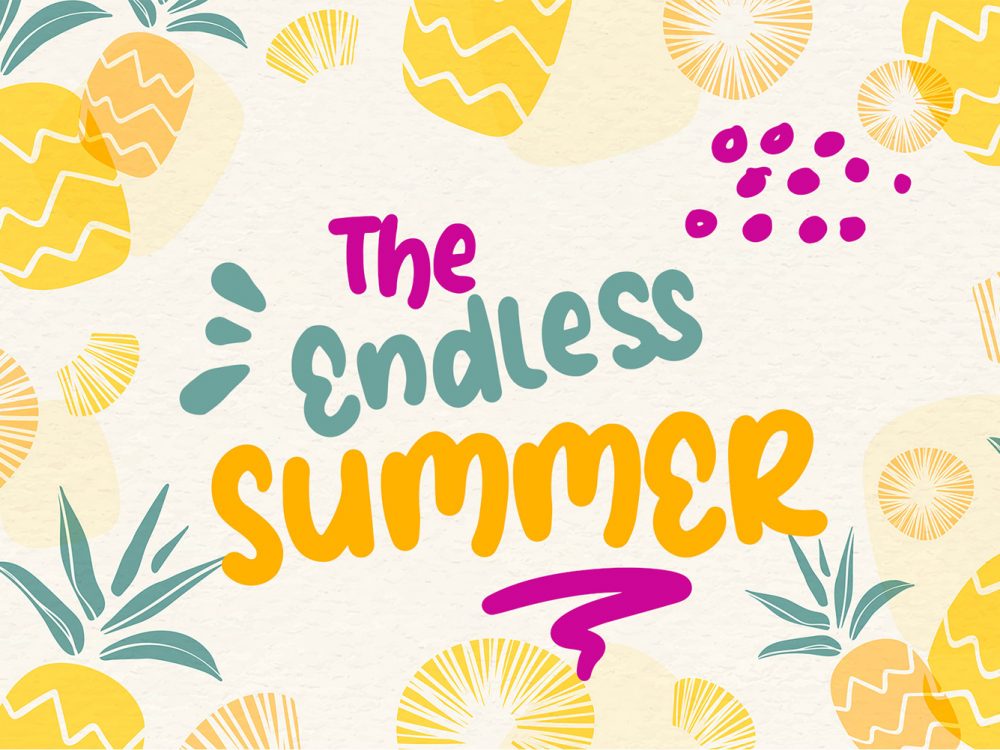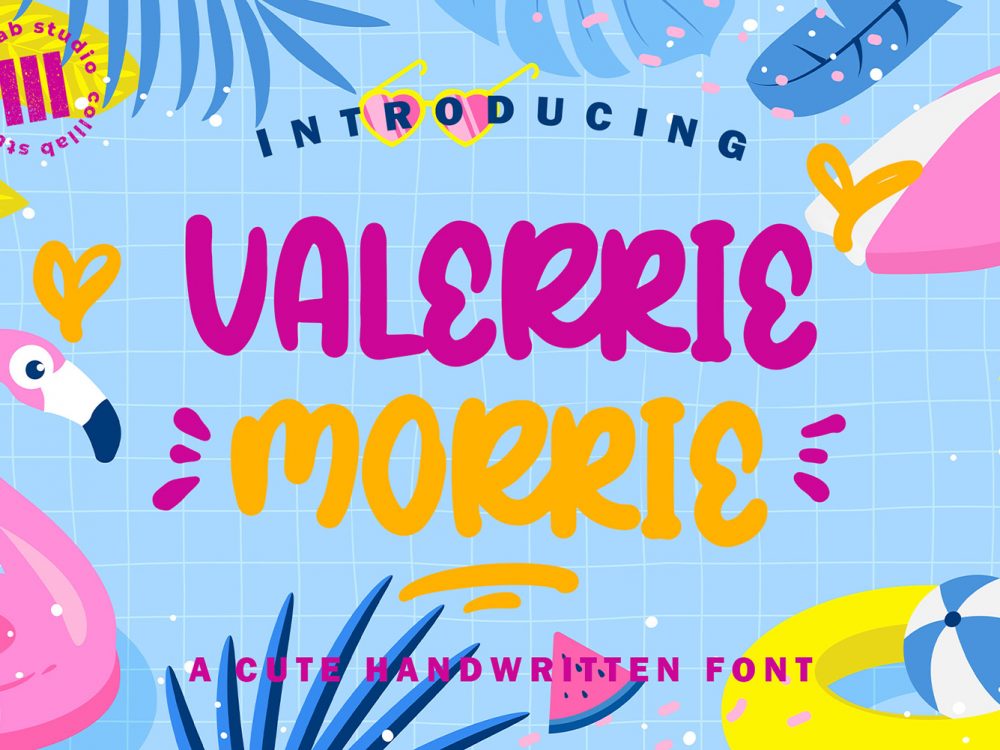
Valeerie Morrie Free Font
Valeerie Morrie Free Font is a scriptable fun handwritten font that imitates writing with a brush and is well suited for creating various design projects in a modern style and for children. You can use this font to create memorable posters, wedding invitations, cards, branding, flyers, and more. If you like it don’t forget to check out the full version.